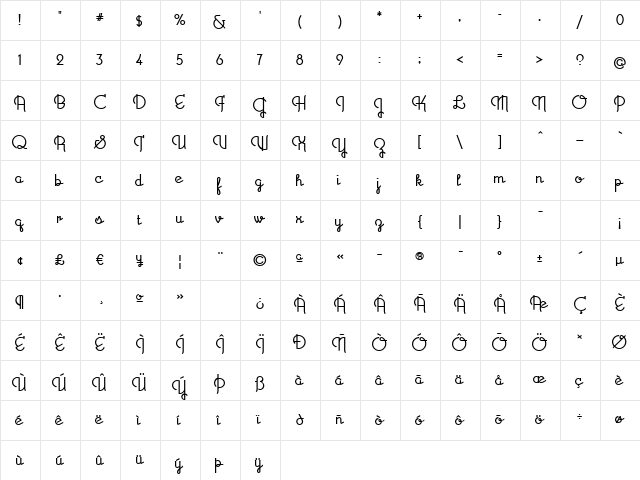
OrionMD Regular
Design Context for OrionMD Typeface
OrionMD is a composed and adaptable typeface that performs quietly and consistently across a wide range of design contexts.